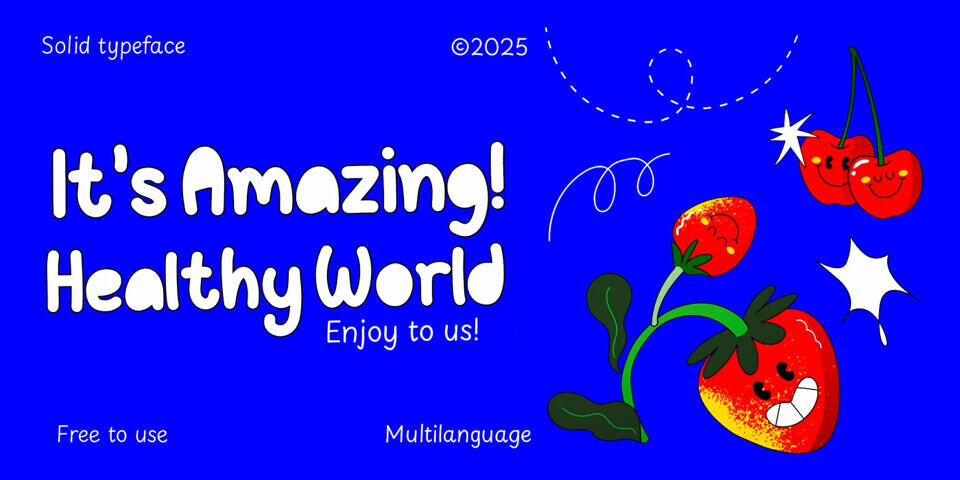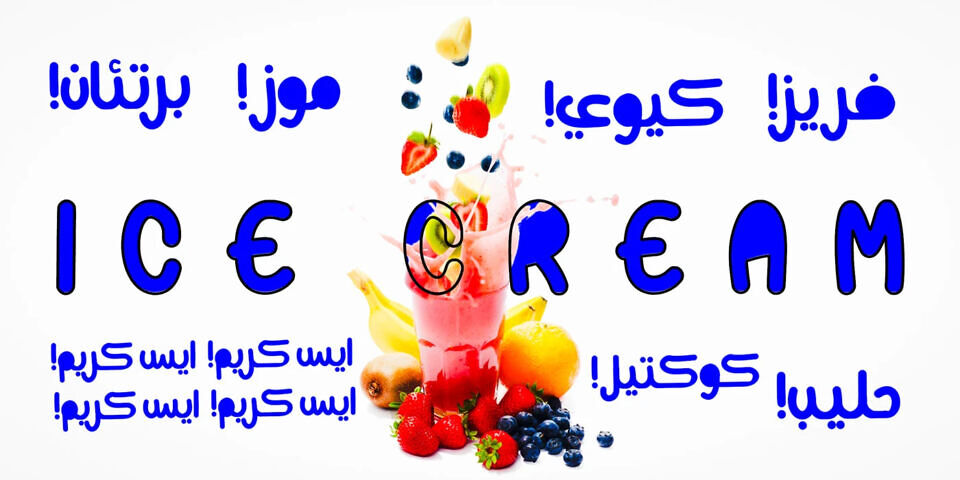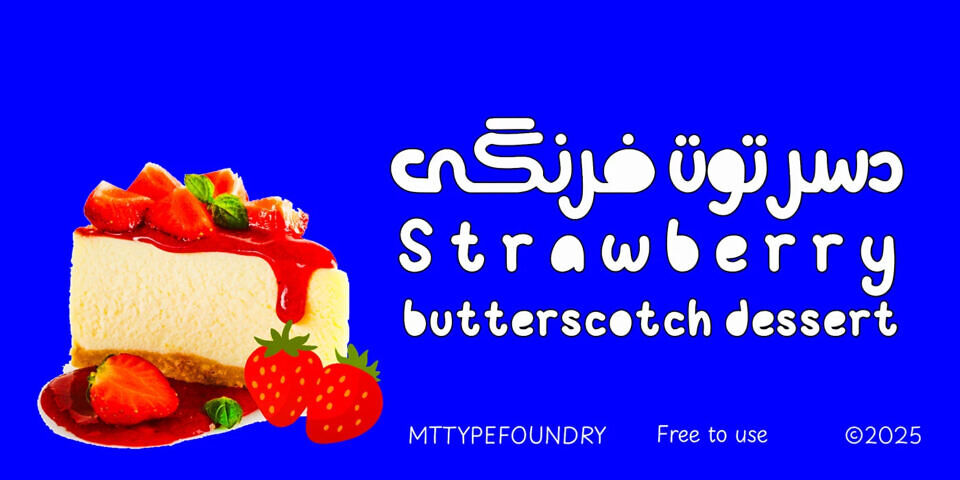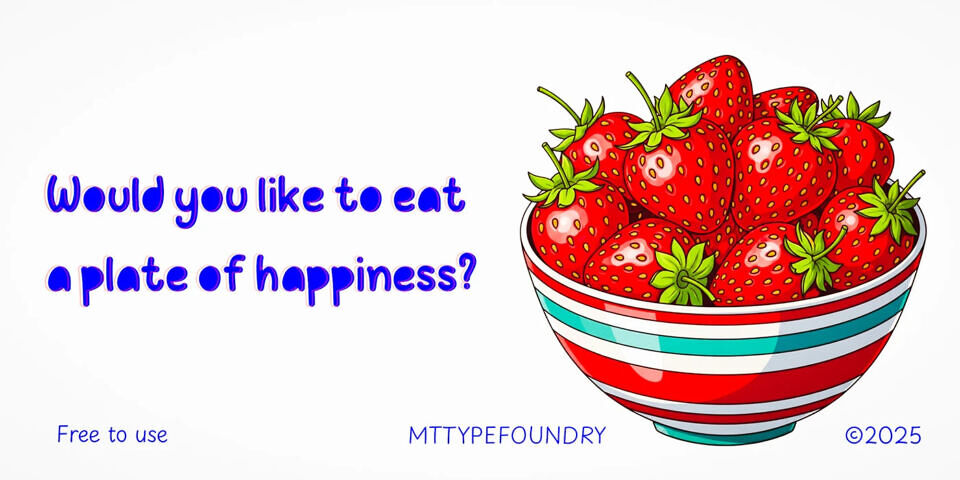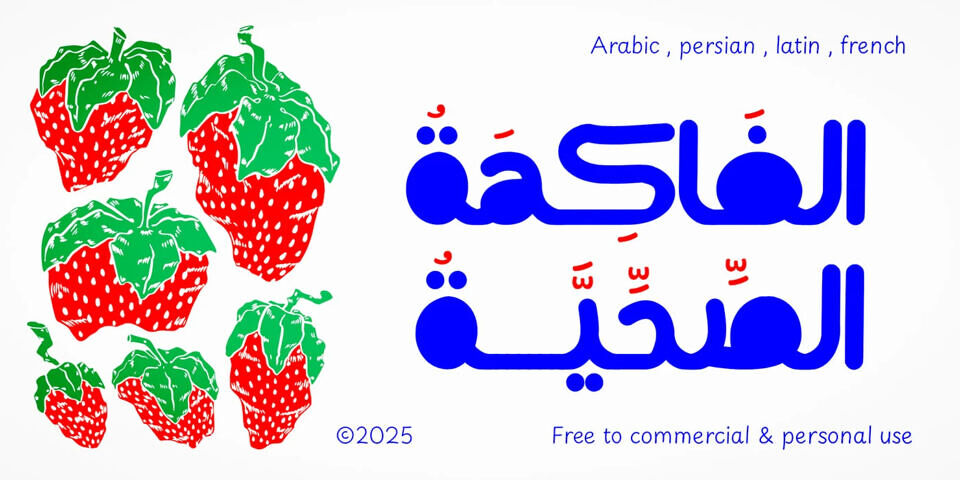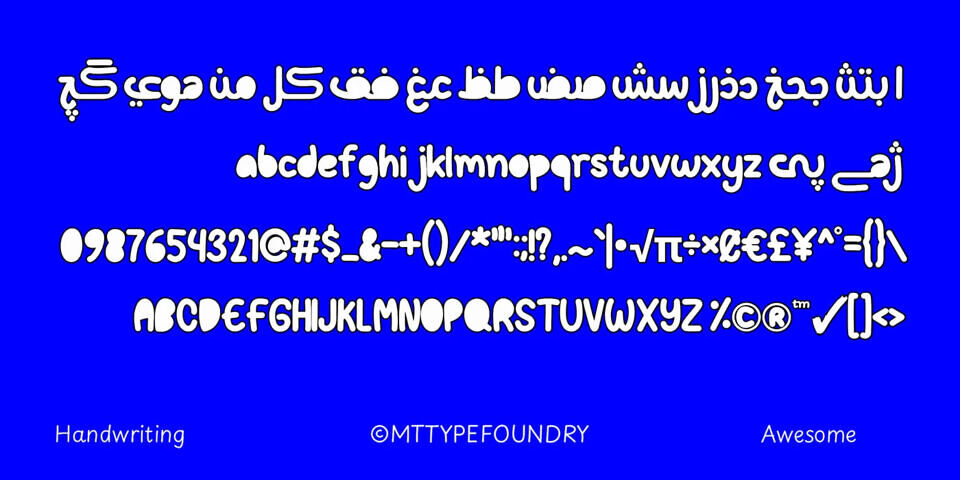
Strawberry Font by MT Type Foundry is a playful, handwritten-style typeface inspired by the sweetness of strawberries. Featuring bold, rounded letters with soft curves, it brings a fun, childlike charm to any design.
Supporting Arabic, Persian, Latin, and French scripts, it’s perfect for multilingual projects. Ideal for food packaging, kids’ products, posters, or cheerful branding, Strawberry Font adds a burst of positivity and creativity. Completely free for personal and commercial use, this solid and bubbly typeface delivers an irresistibly joyful vibe to every word you design.